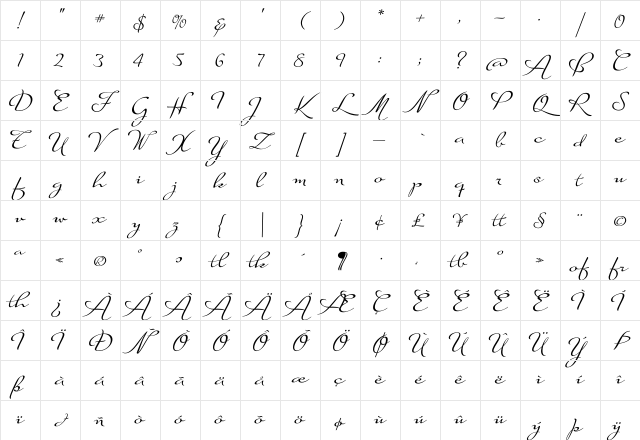
Suave Script Alt Regular Free Font
Suave Script Alt Regular
Foundry: Sudtipos by Alejandro Javier Paul. Buenos Aires, Argentina
Design Context for Suave Script Alt
Suave Script Alt flows with the natural rhythm of handwritten lettering, making it ideal for designs that call for warmth and personal expression.
Font Pairing: Combine Suave Script Alt with a simple geometric sans for maximum contrast - the tension between flowing curves and clean structure is a classic typographic pairing.
Pro Tip: Use Suave Script Alt for short runs of text - names, titles, or taglines. Extended body copy in script faces tires the eye quickly.